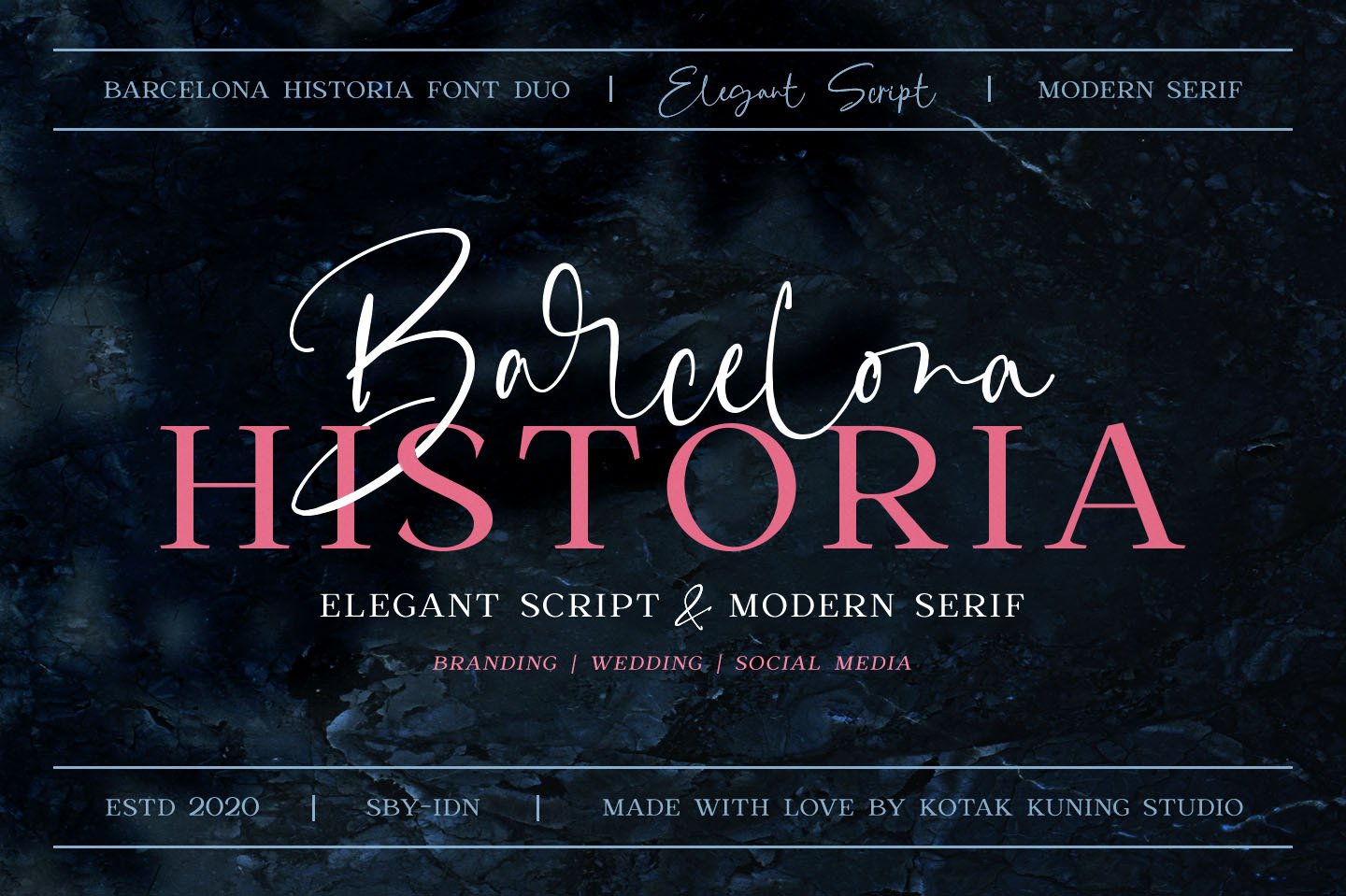
Barcelona Historia Font Duo
Barcelona Historia is a beautiful font duo with an elegant signature script with a natural & stylish flow and modern serif font. This font has a multitude of natural-looking ligatures in its OpenType features - making the font look as close to natural handwriting as possible. This collection of the font is perfect for personal branding.
Barcelona Historia Duo Font is perfect for many different projects such as logos & branding, invitation, stationery, wedding designs, social media posts, advertisements, product packaging, product designs, label, photography, watermark, special events, or anything.